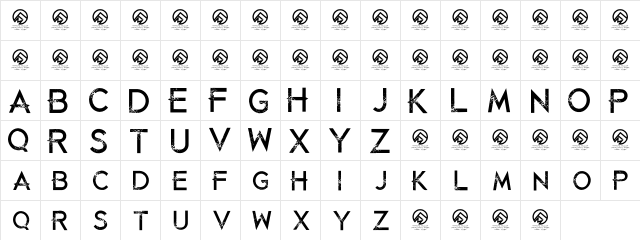
Just Die Already Regular
Design Context for Just Die Already Typeface
Just Die Already is a composed and adaptable typeface that performs quietly and consistently across a wide range of design contexts.